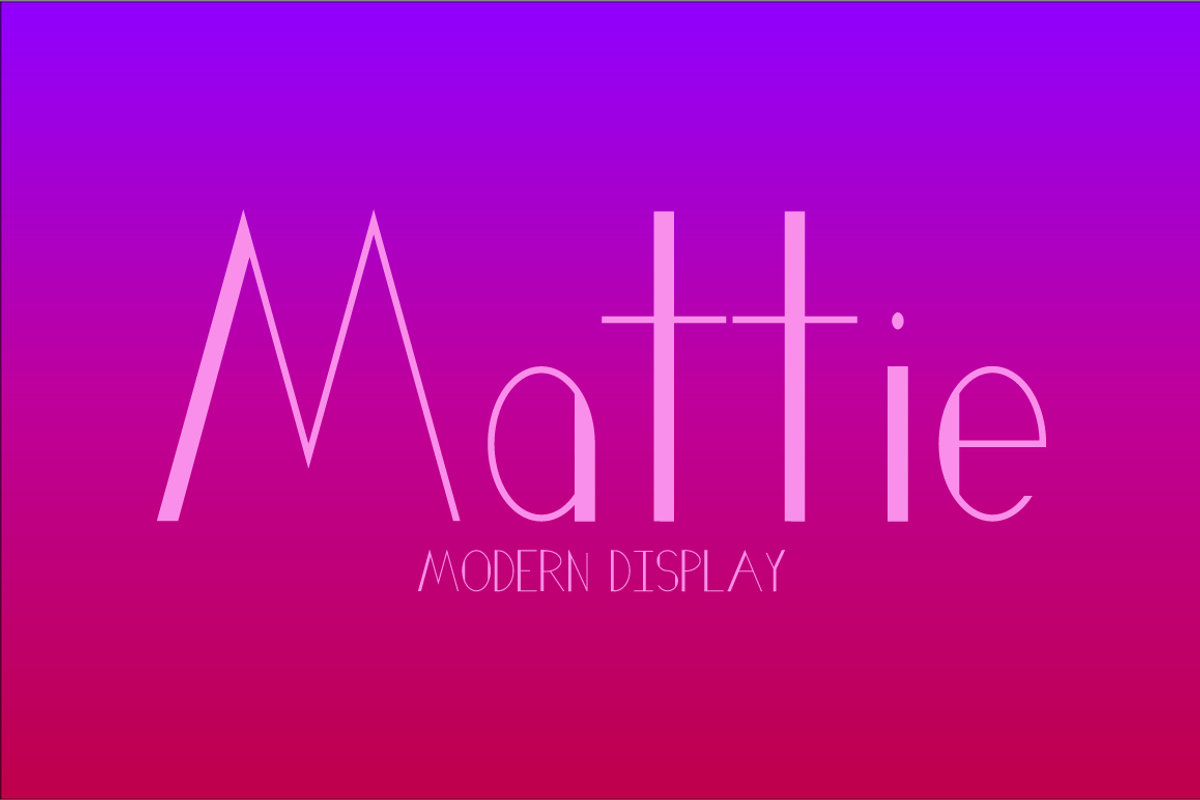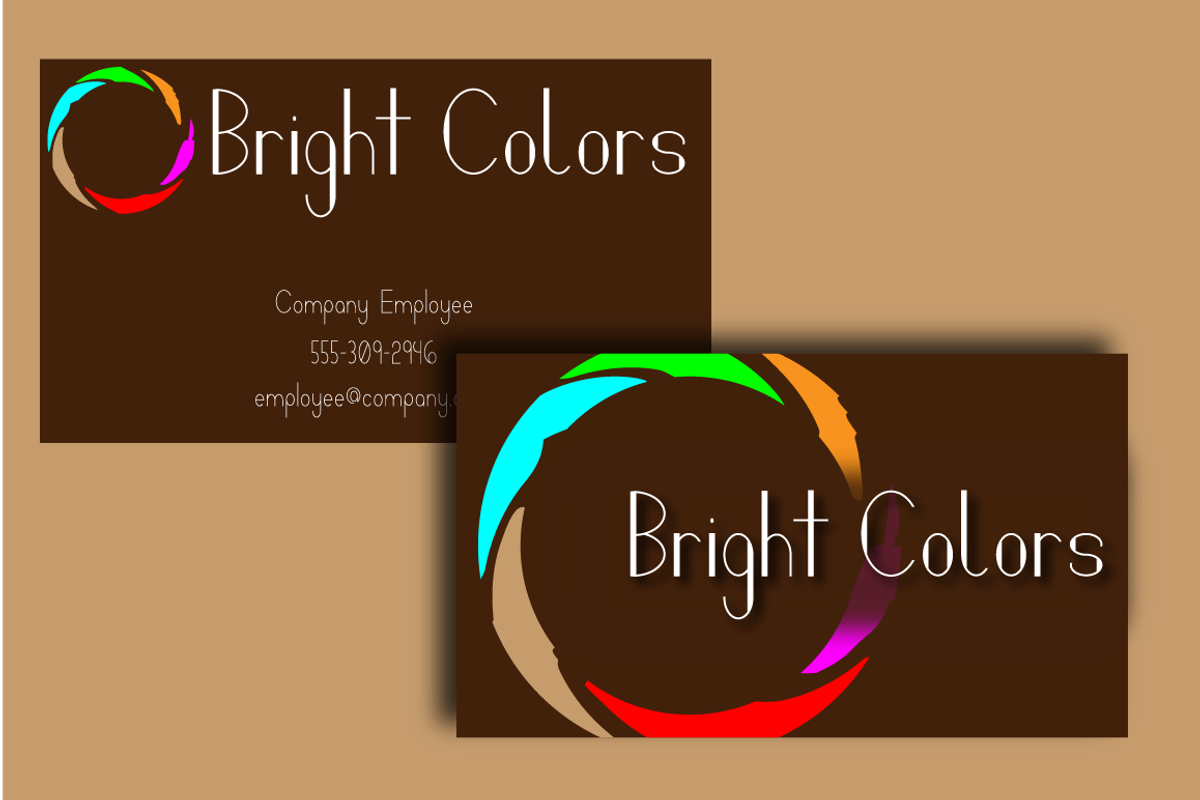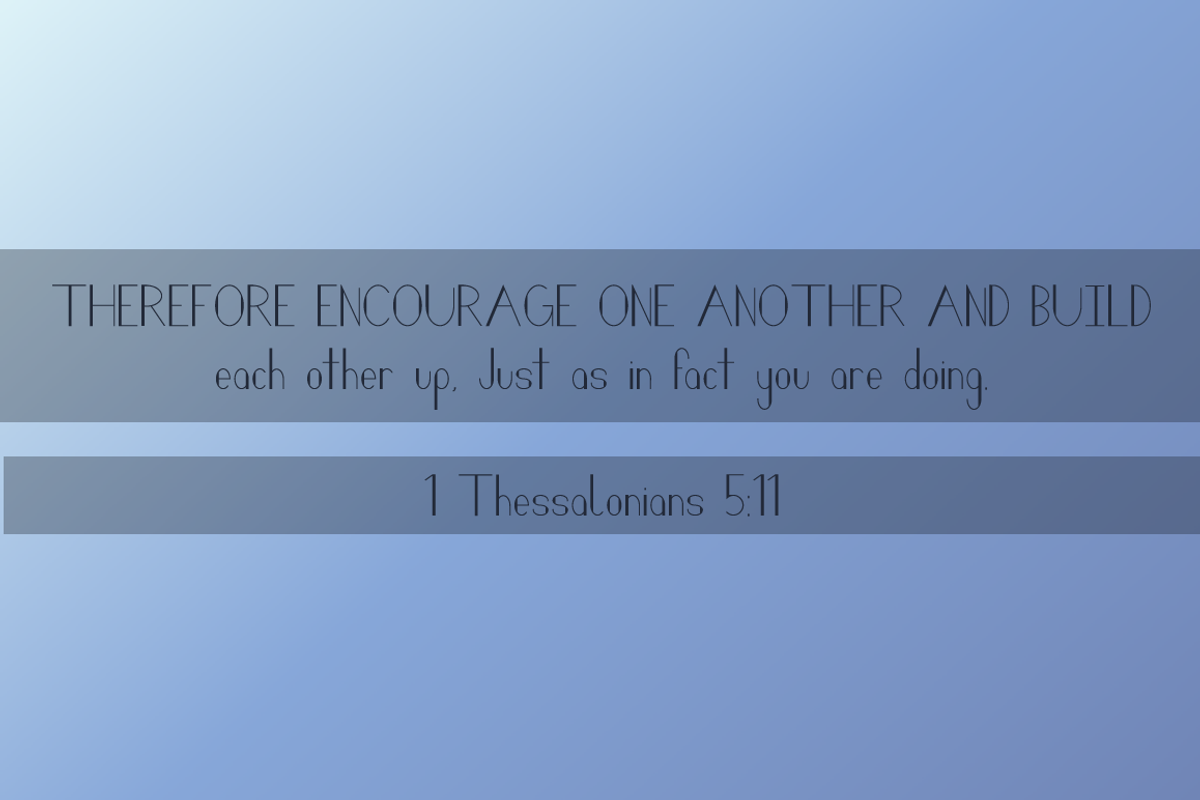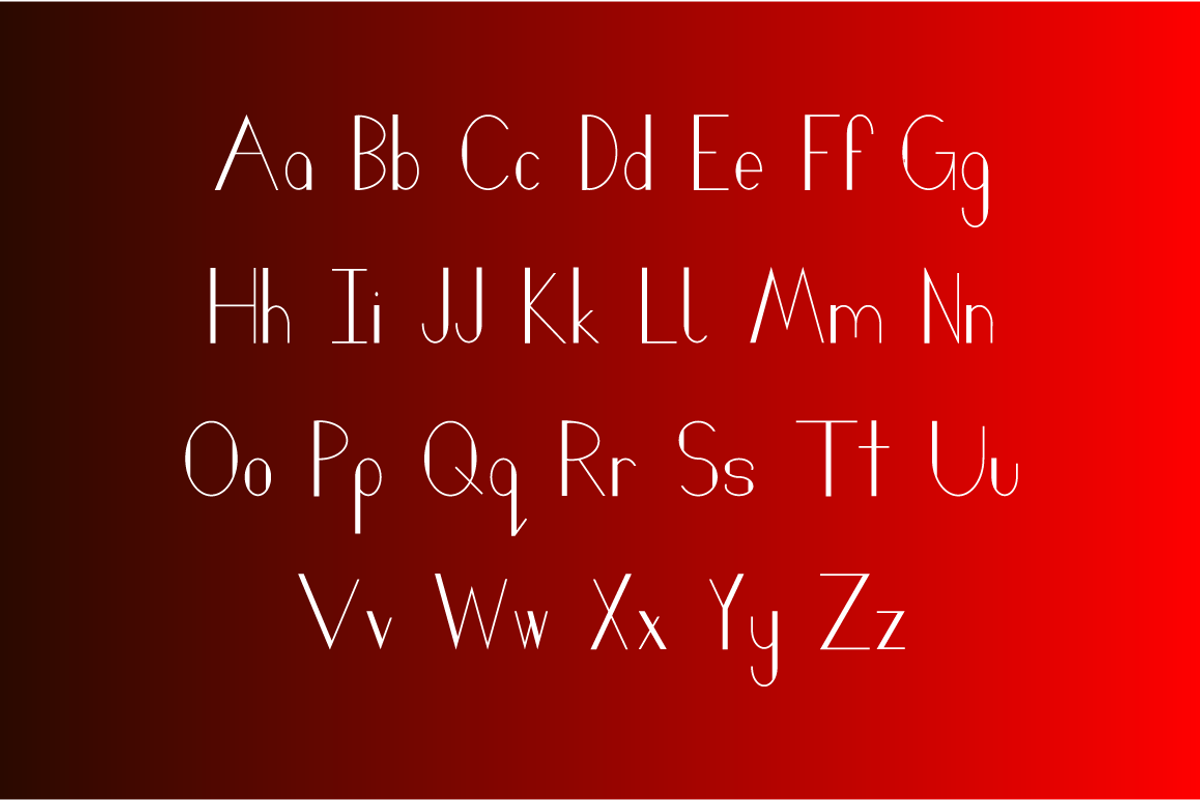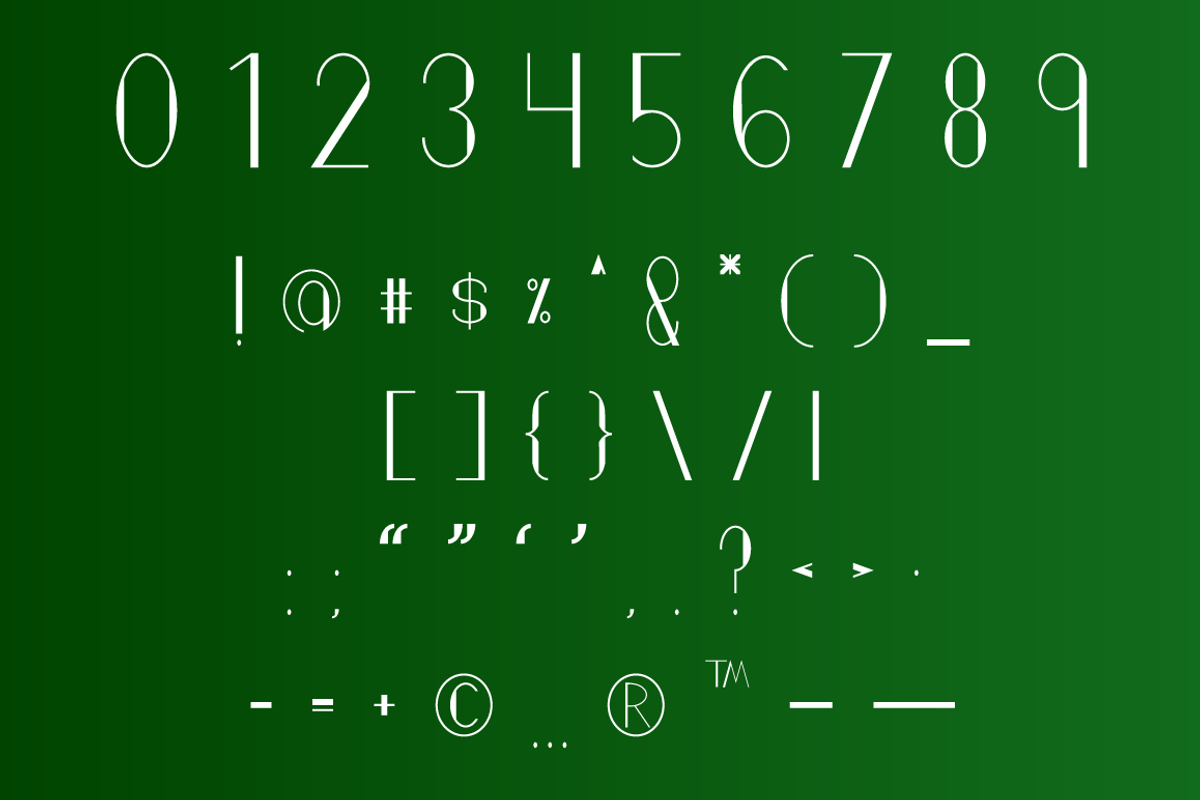
Mattie Typeface
Mattie is a modern display that is purposefully a little off-kilter. It's dedicated to my mother who is also a little off-kilter :). Freebie included!